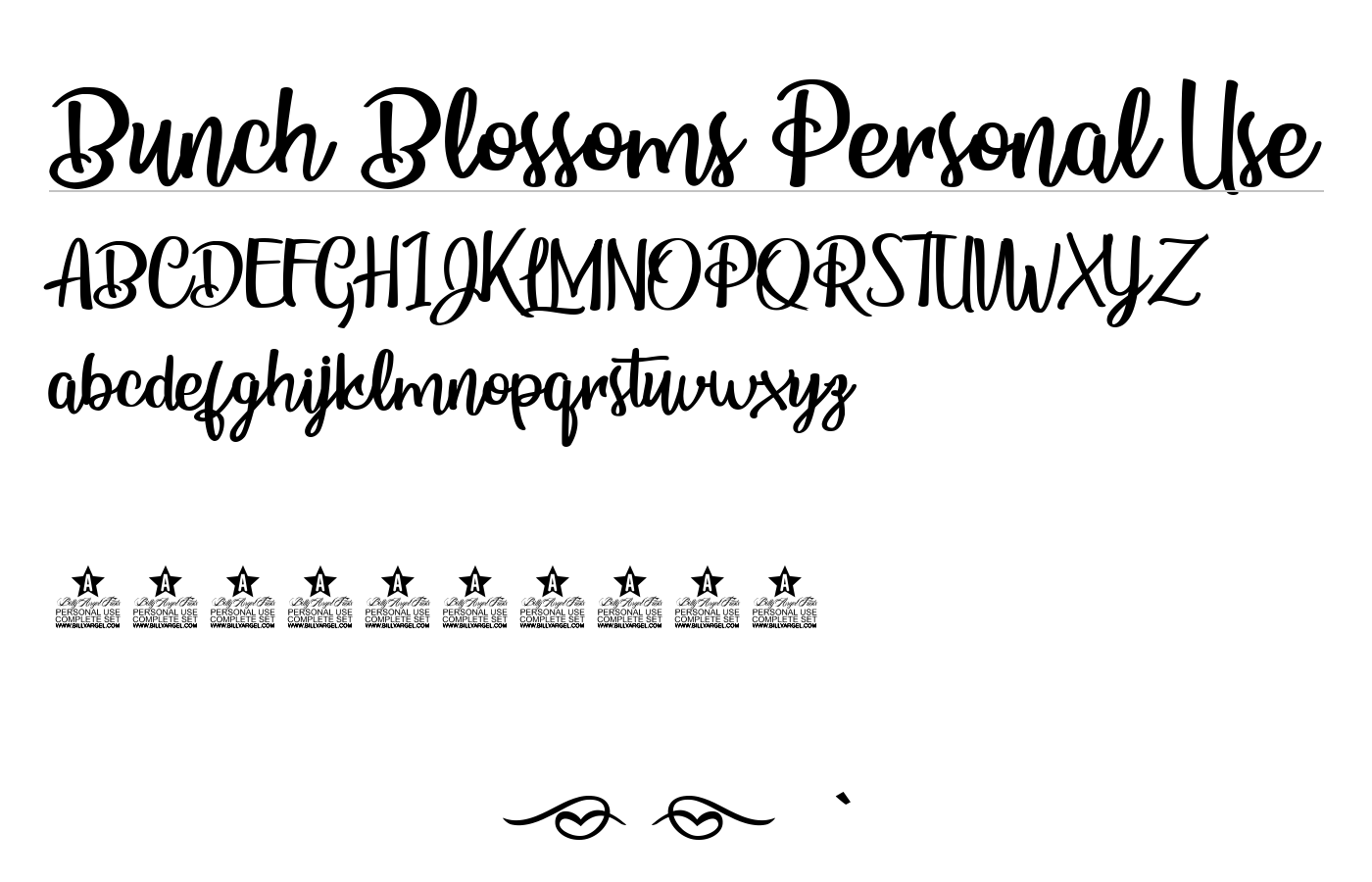
Bunch Blossoms Personal Use is a charming script font with a playful, hand-lettered feel, featuring smooth, moderately contrasted strokes and a casual elegance. Its flowing letterforms and whimsical details make it perfect for creative projects like invitations, logos, and boutique branding where a friendly, approachable, yet stylish look is desired. This font works best in decorative titles and eye-catching headlines, bringing warmth and personality to any design.
Bunch Blossoms Personal Use Font
About Bunch Blossoms Personal Use Font
| Font family | Bunch Blossoms Personal Use Font |